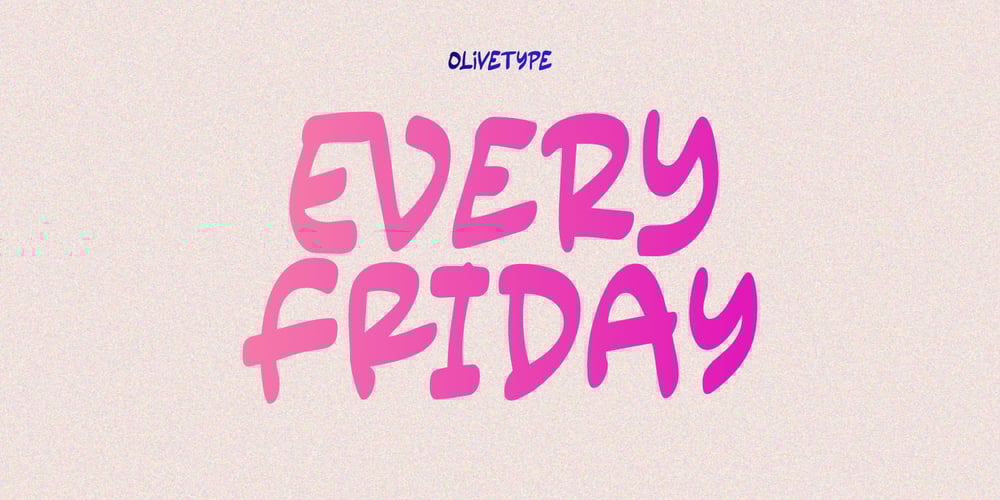
Every Friday Font Family was designed by Nurul Hidayani and published by Olivetype. Every Friday contains 1 styles and family package options. Every Friday is a clean, relaxed, and chunky lettered display font. It will fit perfectly in each of your urban designs.This font is supporting Multi-Languages, which includes: Afrikaans Albanian Catalan Danish Dutch English Estonian Finnish French German Italian Norwegian Portuguese Spanish Swedish Zulu.Thanks and have fun!